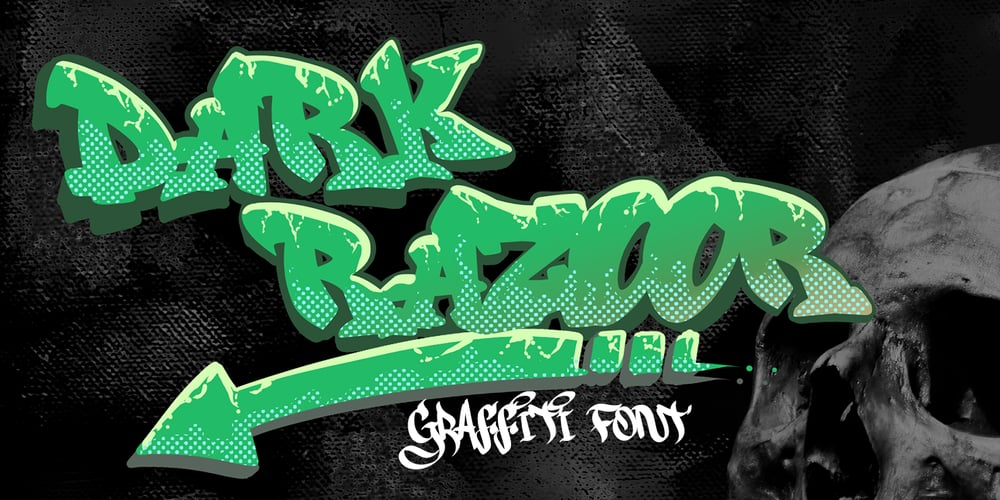
Dark Razoor Graffiti Font Family was designed by Sipanji and published by Sipanji21. Dark Razoor Graffiti contains 1 styles and family package options. This Fonts designed so that users can use it more easily and make graffiti designs easier. Dark Razoor is very suitable for use in various media such as; packaging, logos, labels, posters, shirt designs, bulletins, typography, and many other media, especially with graffiti look.Features: All Caps PUA Encoded open Support for MAC or PC Simple installation for Adobe Illustrator, Corel Draw, Photoshop, or Procreate (New Updated) That’s it! If you have any questions don’t hesitate to ask!Stay Classy!